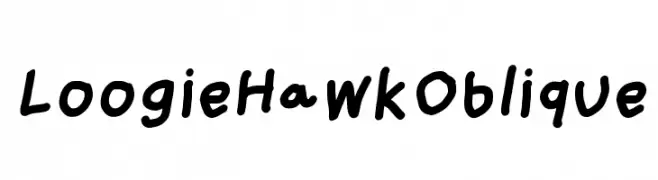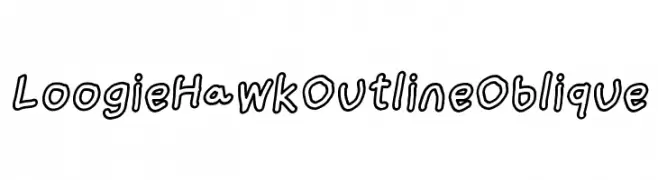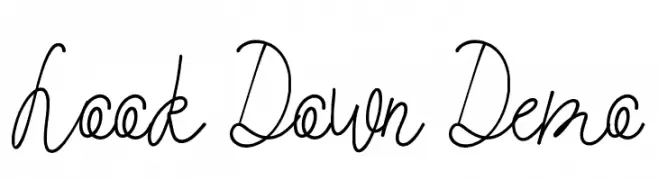
A bold, angular font with a futuristic and geometric design.
A playful, handwritten font with bold, rounded strokes and an oblique style.
A playful, outlined font with a cartoonish, hand-drawn style.
A playful, outlined, and slightly oblique font with a hand-drawn feel.
A whimsical, eye-themed decorative font with circular illustrated glyphs.
A fluid and elegant cursive font with continuous, flowing strokes.
A bold, geometric font with a three-dimensional outline style.